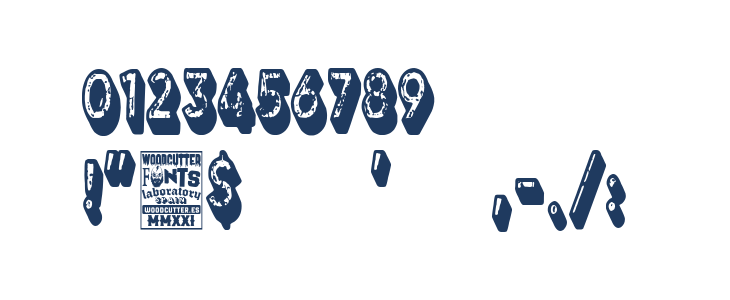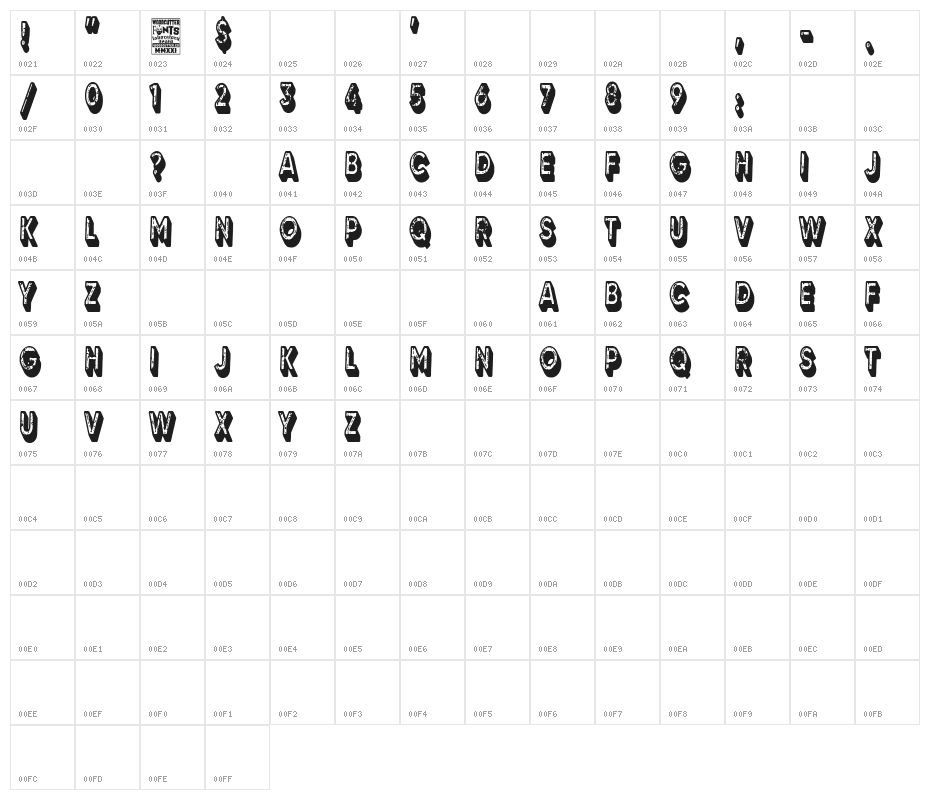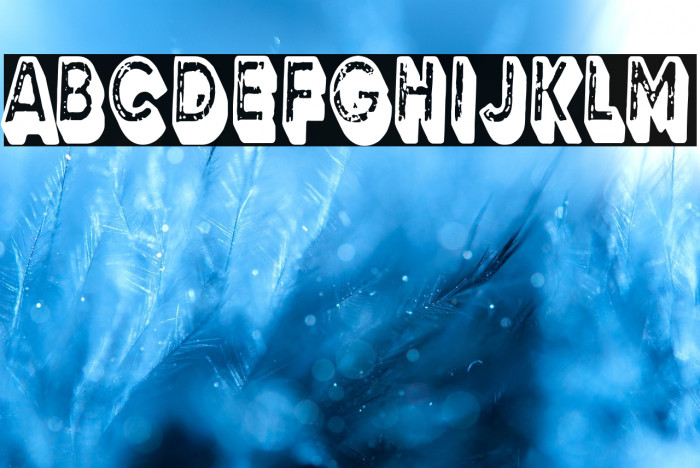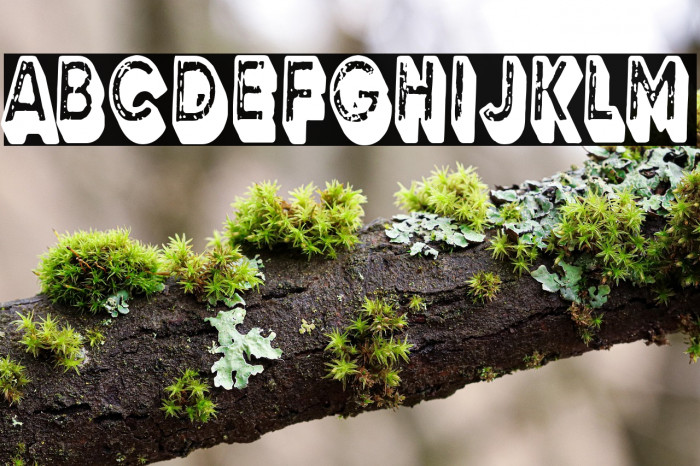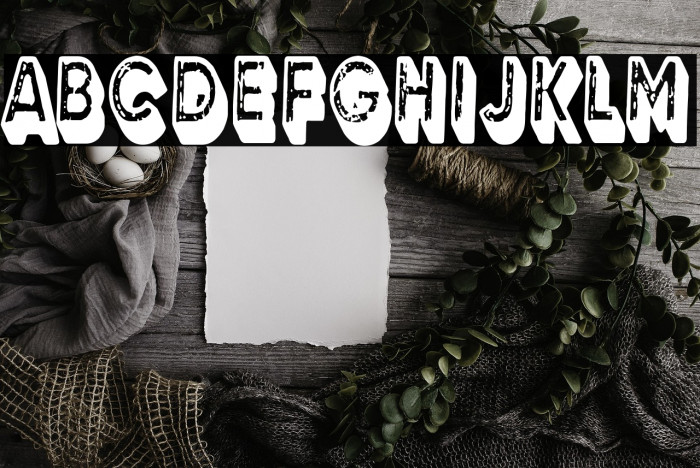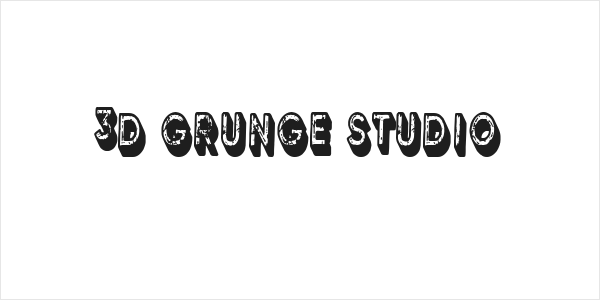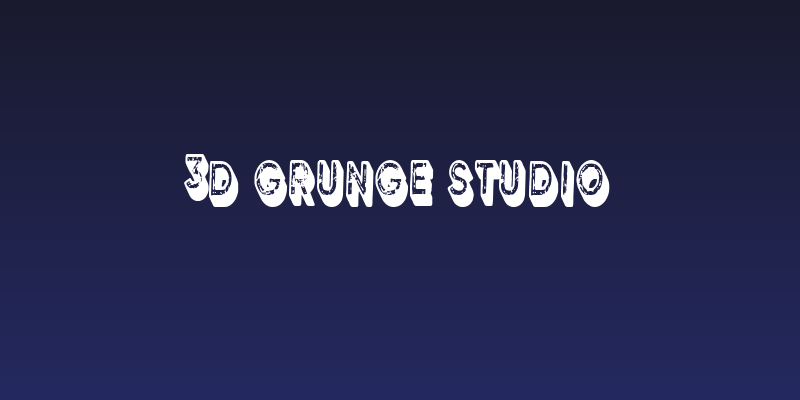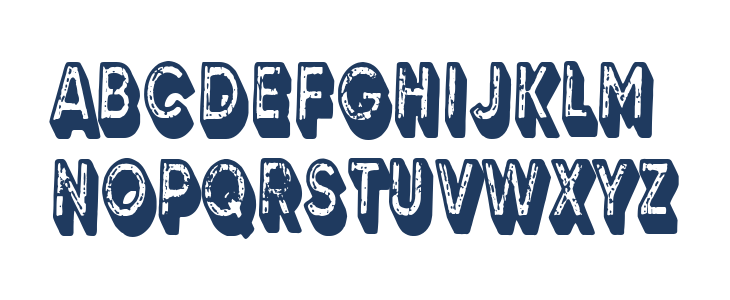
3D Grunge Studio Font
| Stile generale | Grunge, Vintage, Industrial |
| Caso d'uso | Headlines, Posters, Branding |
| Progetti proposti | Ideal for posters, album covers, branding, and any project needing a bold, edgy look. |